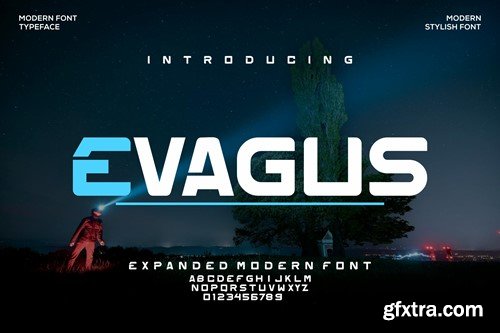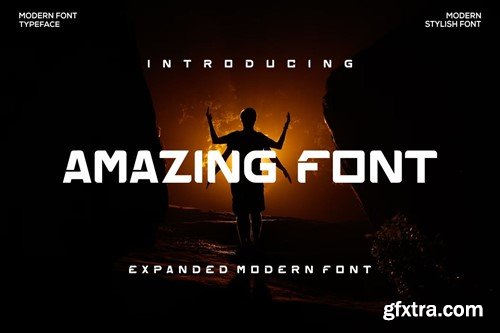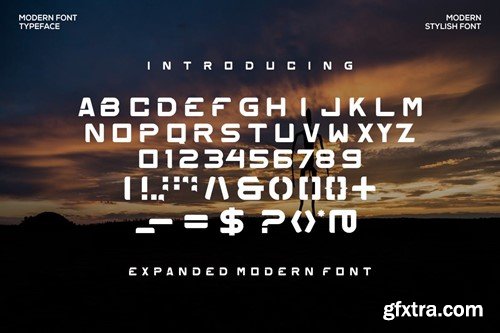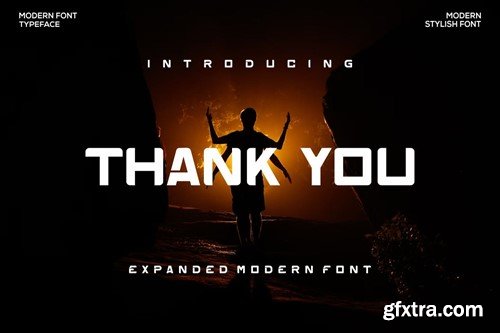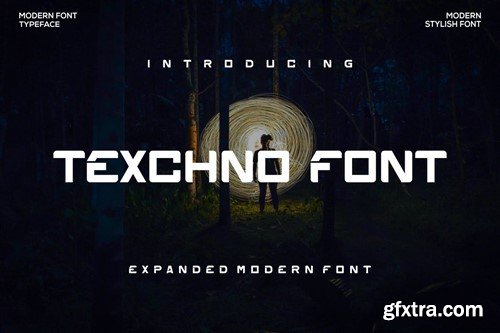
Evagus Font
Introducing our new product Evagus Font - Modern Font is a bold and authentic display font. The font is suitable for any branding project like logo, esport, and many more. outstanding in a wide range of contexts. availlable